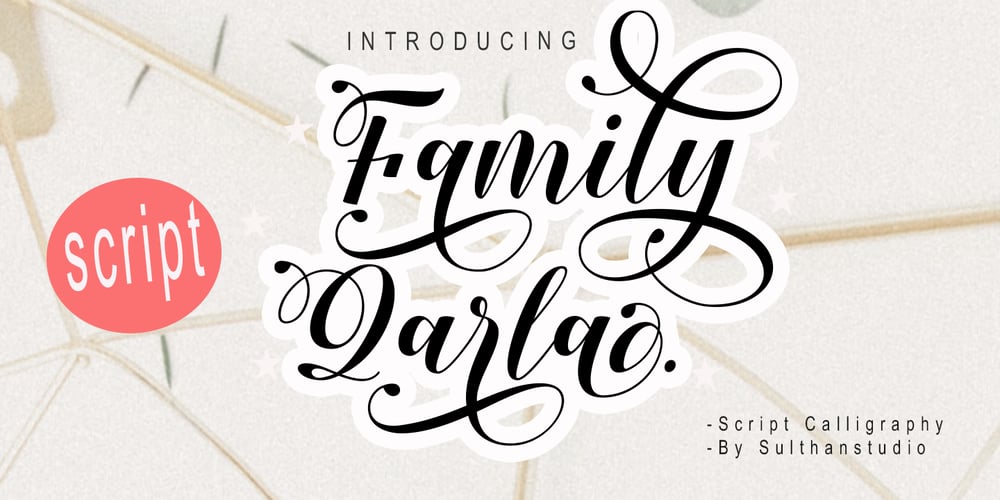
Family Qarla Font Family was designed by Nasrullah and published by Sulthan Studio. Family Qarla contains 1 styles and family package options. This is an elegant calligraphy font. This font is casual and beautiful with swashes. It can be used for various purposes, such as logos, product packaging, wedding invitations, branding, headlines, signage, labels, book covers, posters, quotes, and more.It comes with OpenType style alternatives, ligatures, and International support for most Western Languages.It is also encoded with PUA Unicode, which allows full access to all additional characters without having to have special design softwareThanks a lot for viewing and enjoying it!